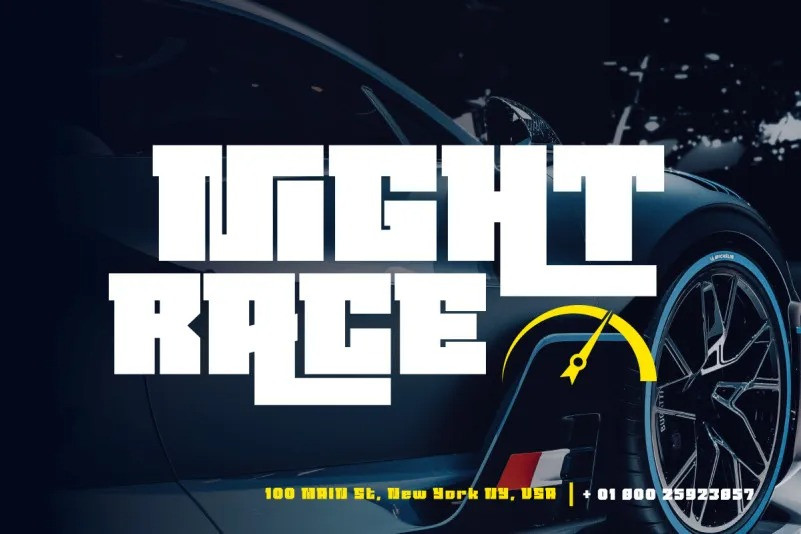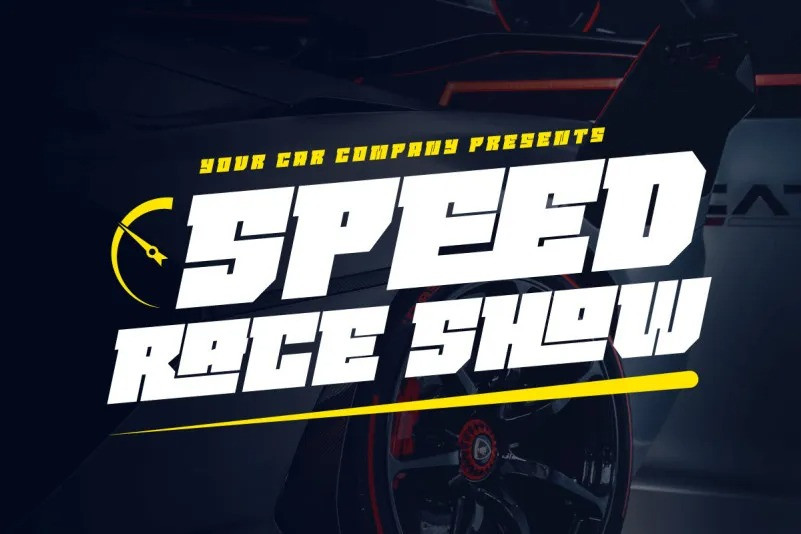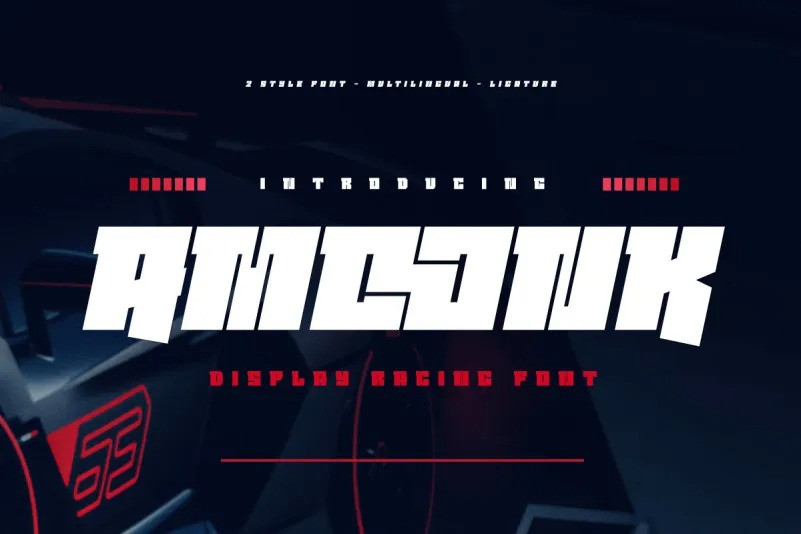
Amoonk Font
Introducing Amoonk Display Font, is a cool, bold and thick lettered display font. This robotic styled font is PUA encoded which means you can access all of the glyphs and swashes with ease.